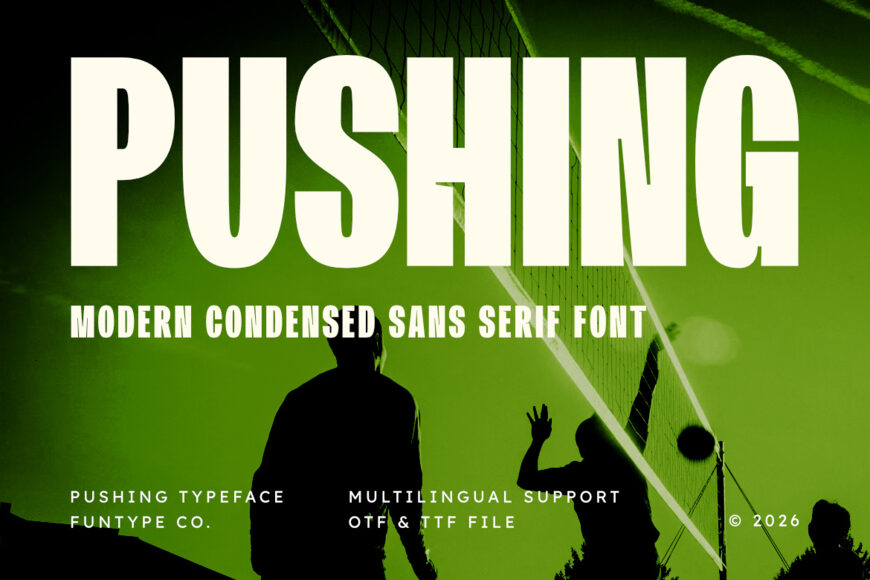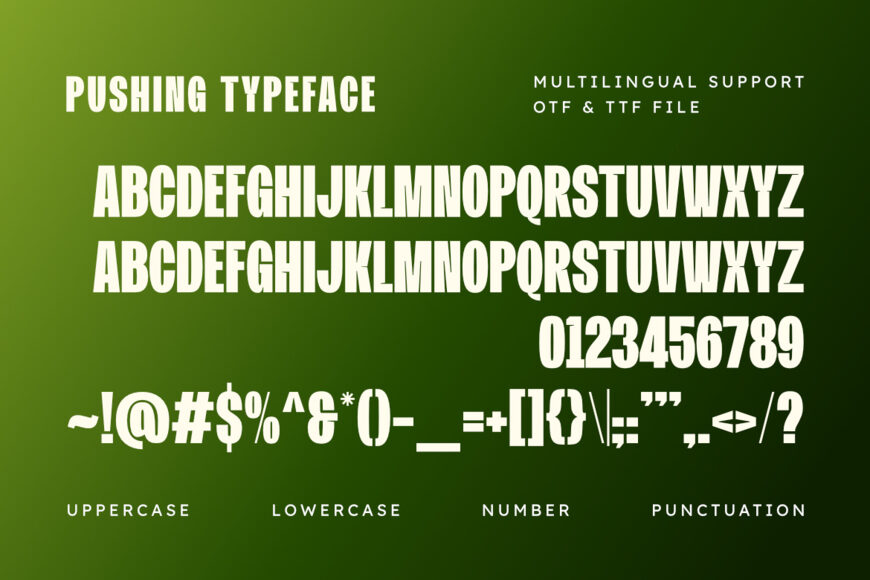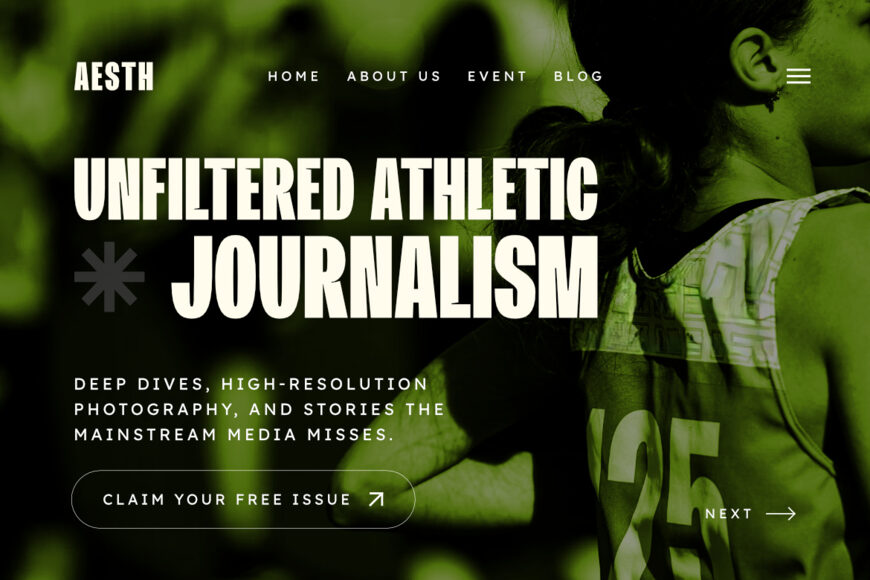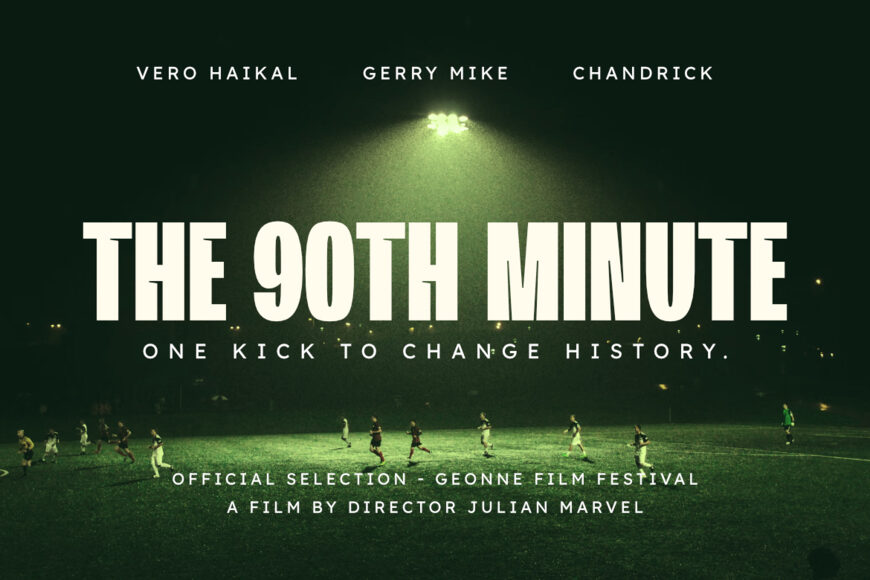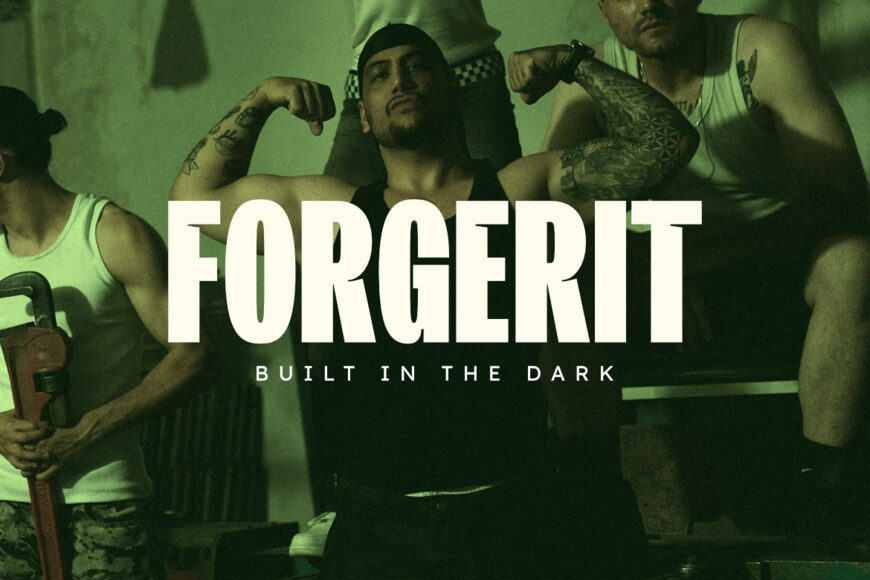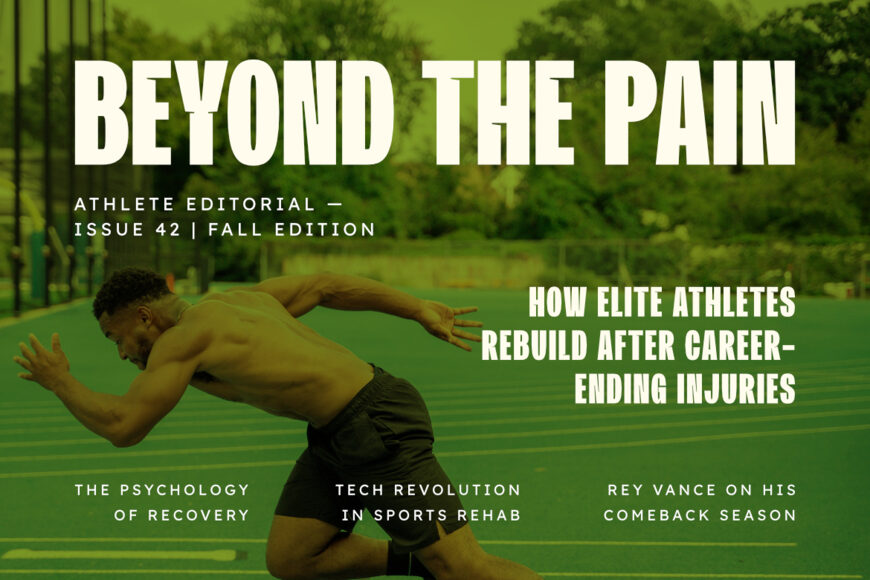
Pushing Font
Pushing is a bold, high-impact, and modern condensed sans serif font, engineered to bring a powerful athletic presence, tall space-saving geometry, and dynamic display aesthetic to contemporary design layouts.
Featuring an elongated vertical profile, heavy block proportions, and sharp angular notch cutouts, Pushing introduces a dynamic sports broadcast identity, championship event promotion, high-energy editorial publishing, and prominent digital media presentation designed to claim absolute visual focus.